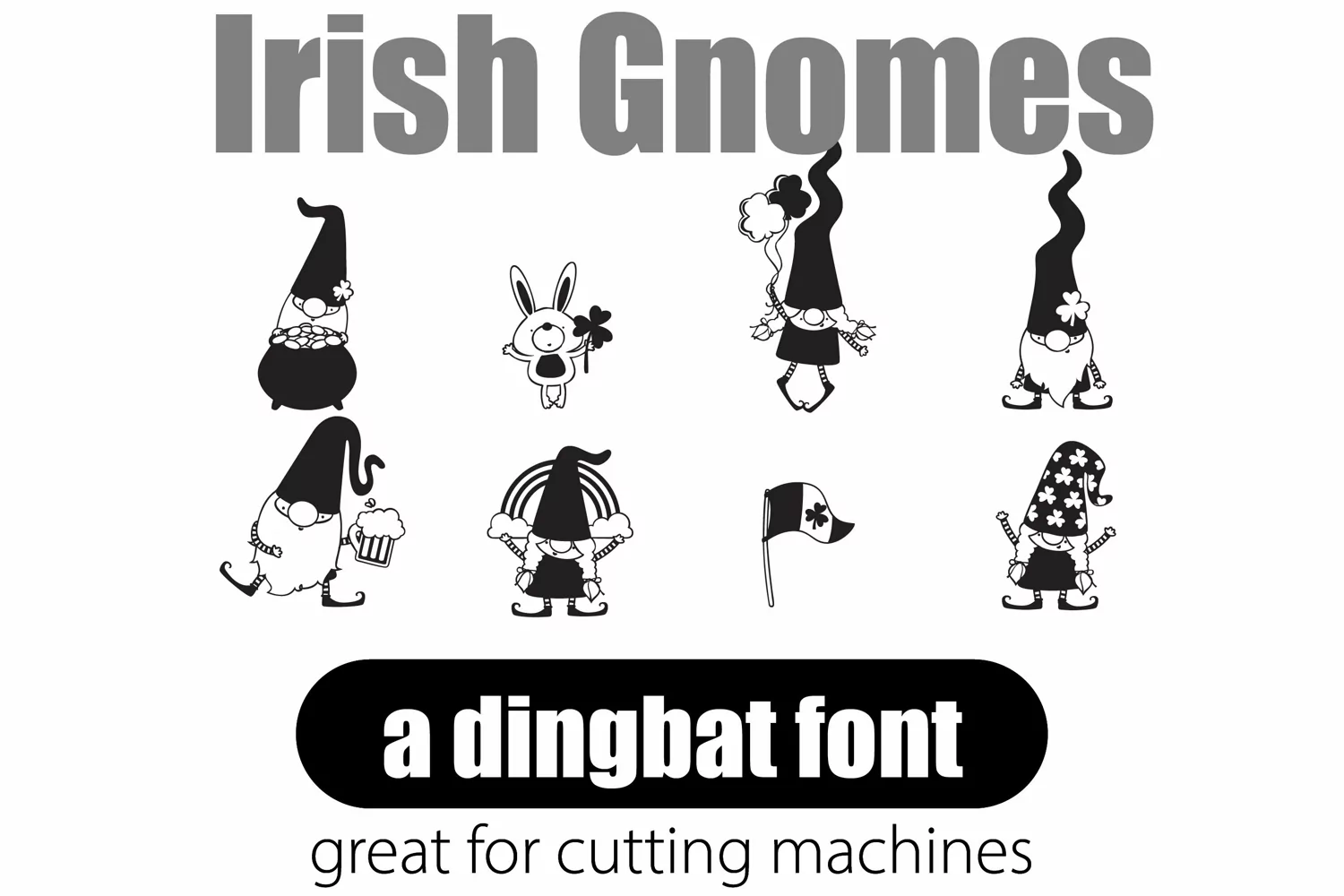
Irish Gnomes
There are two dingbat fonts in this bundle. One is a traditional, black and white dingbat of cute Irish-themed gnomes and the second is a full-color SVG dingbat. Perfect for vinyl and cutting machines!